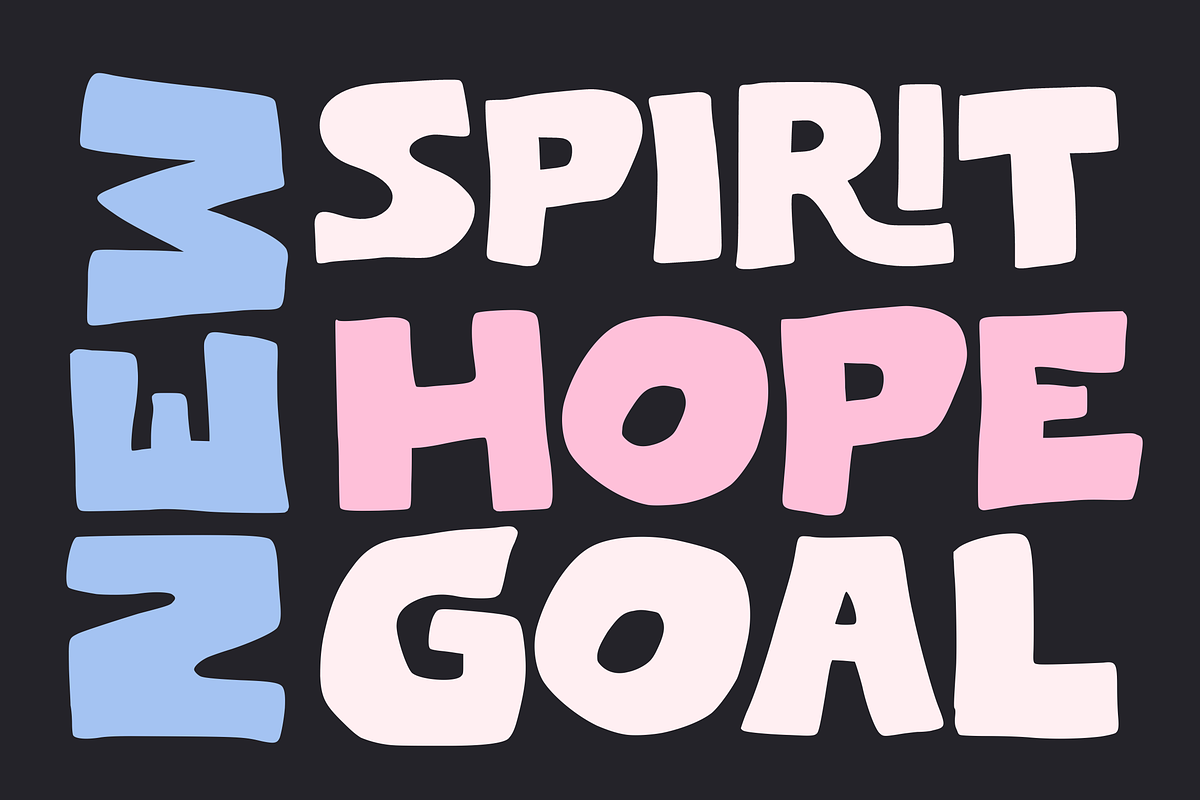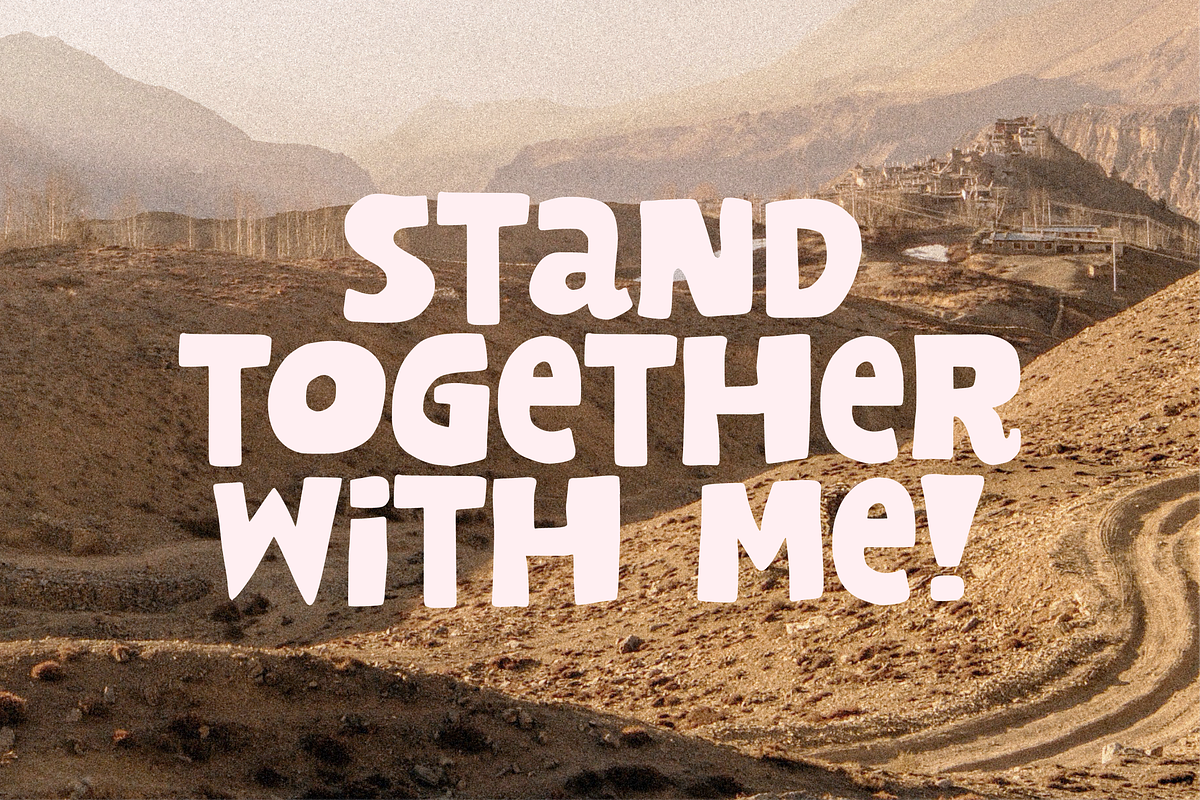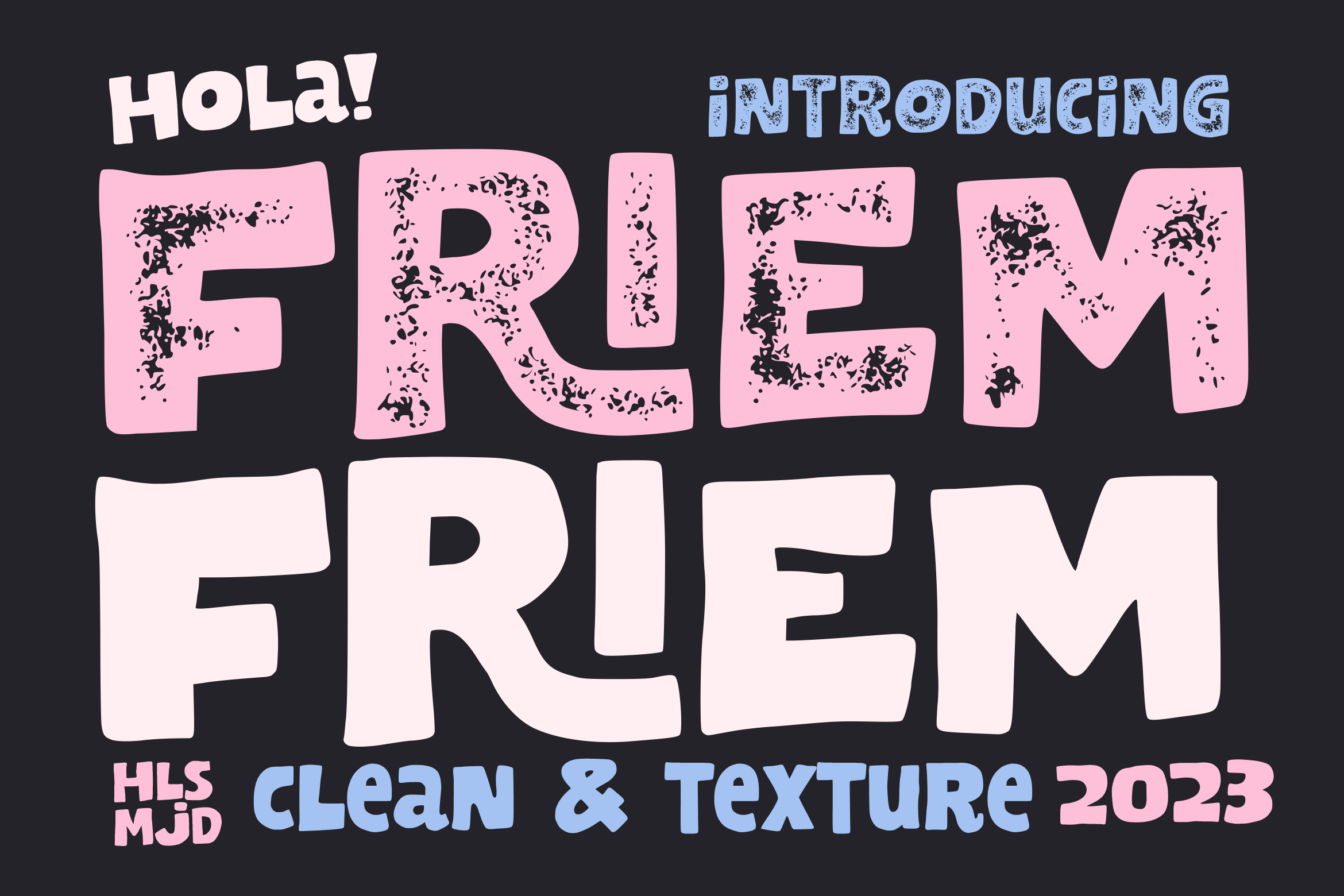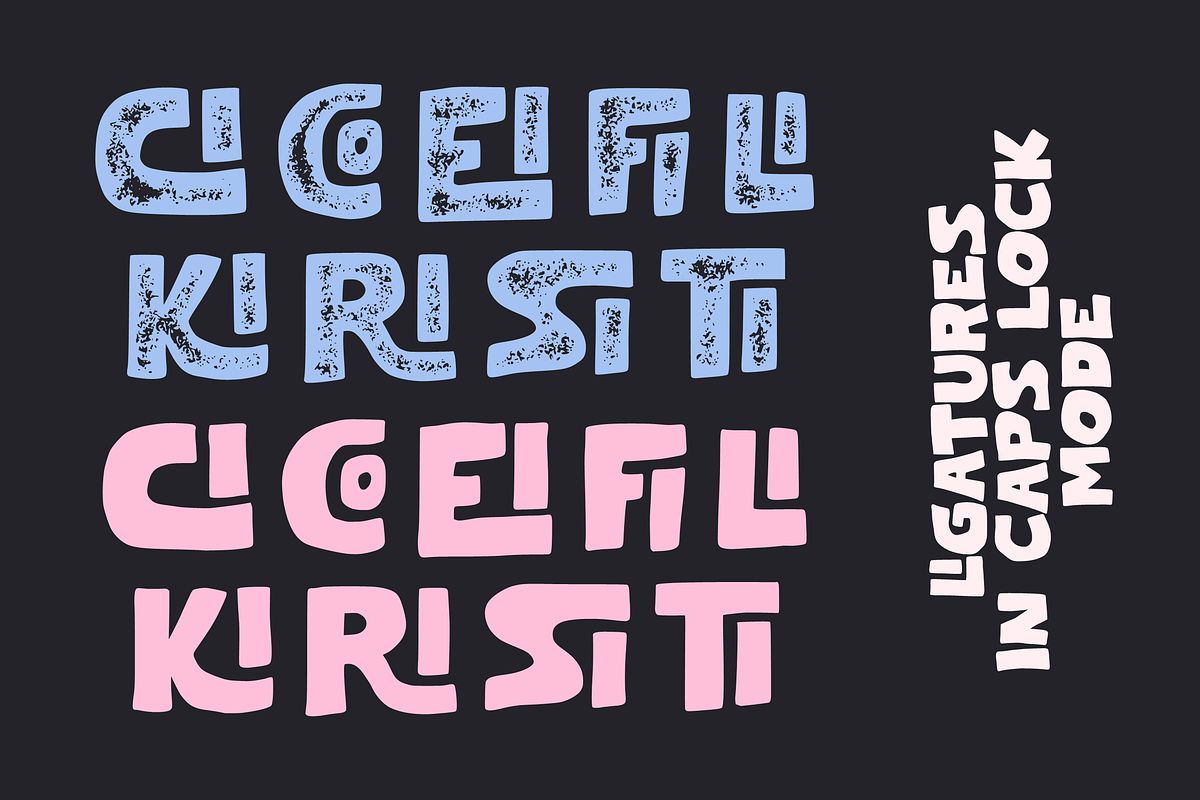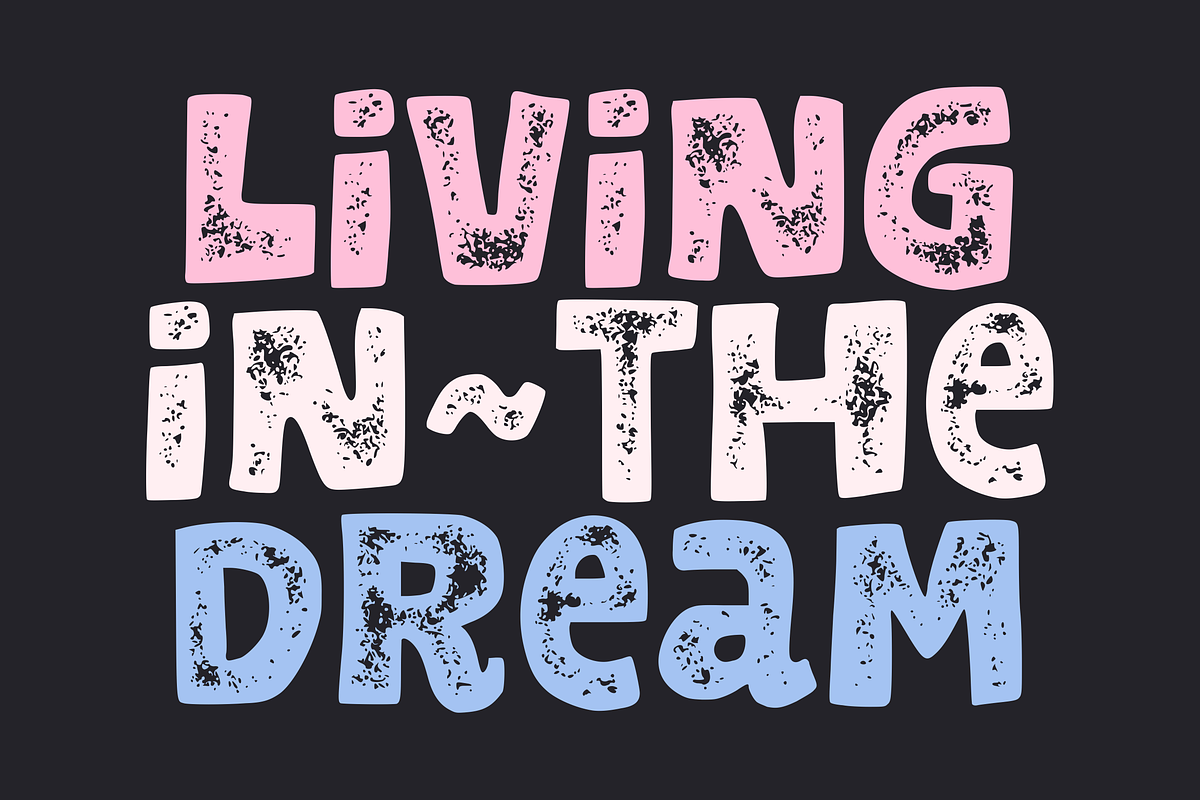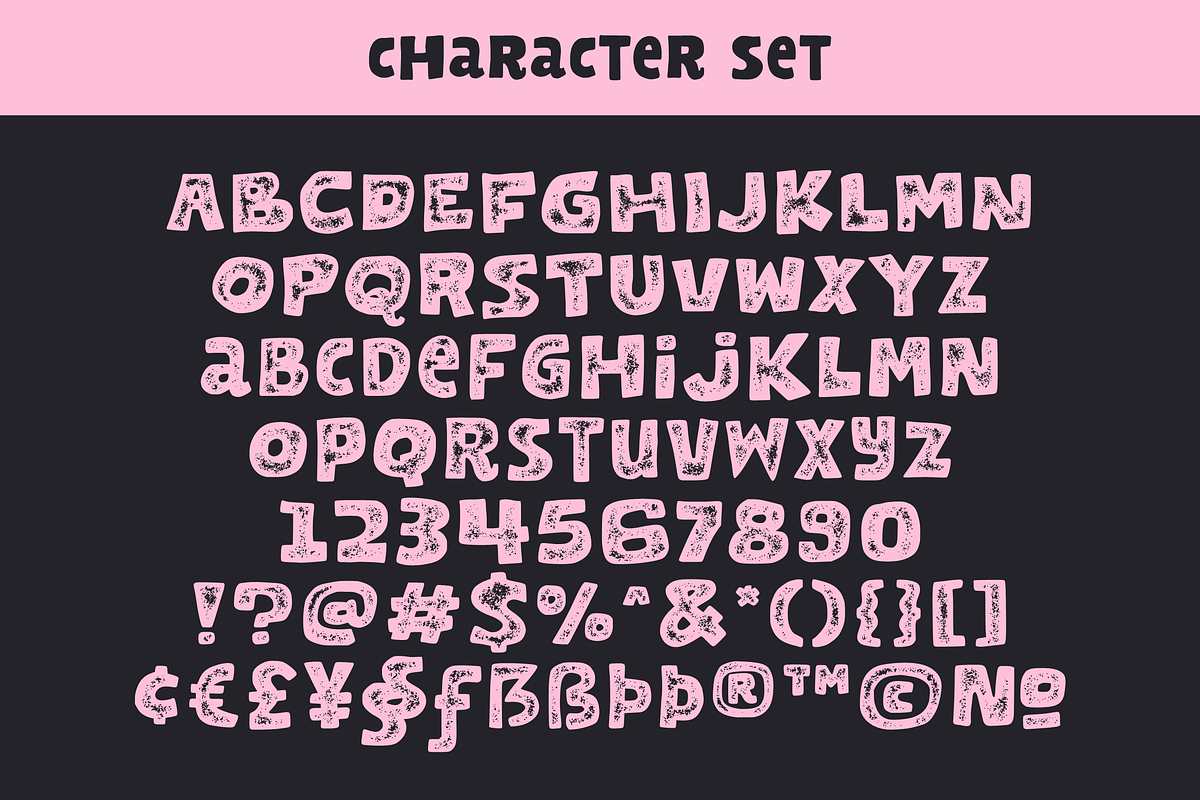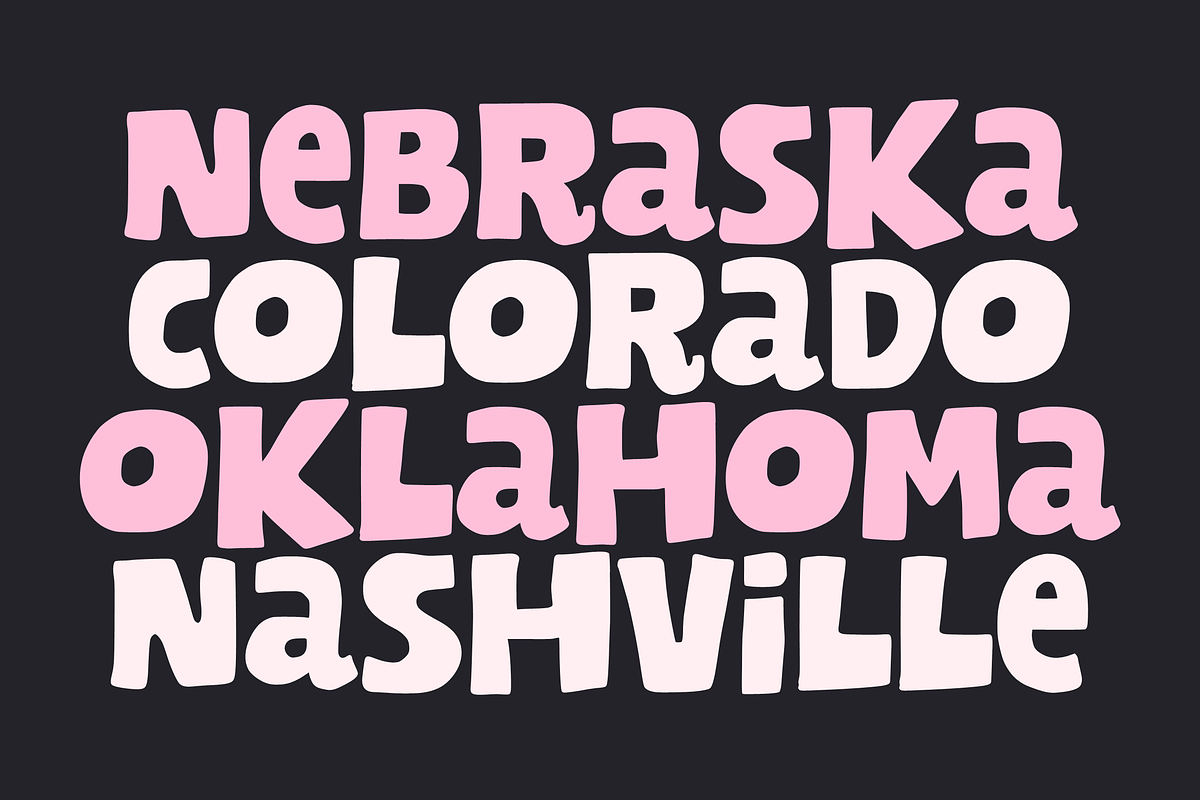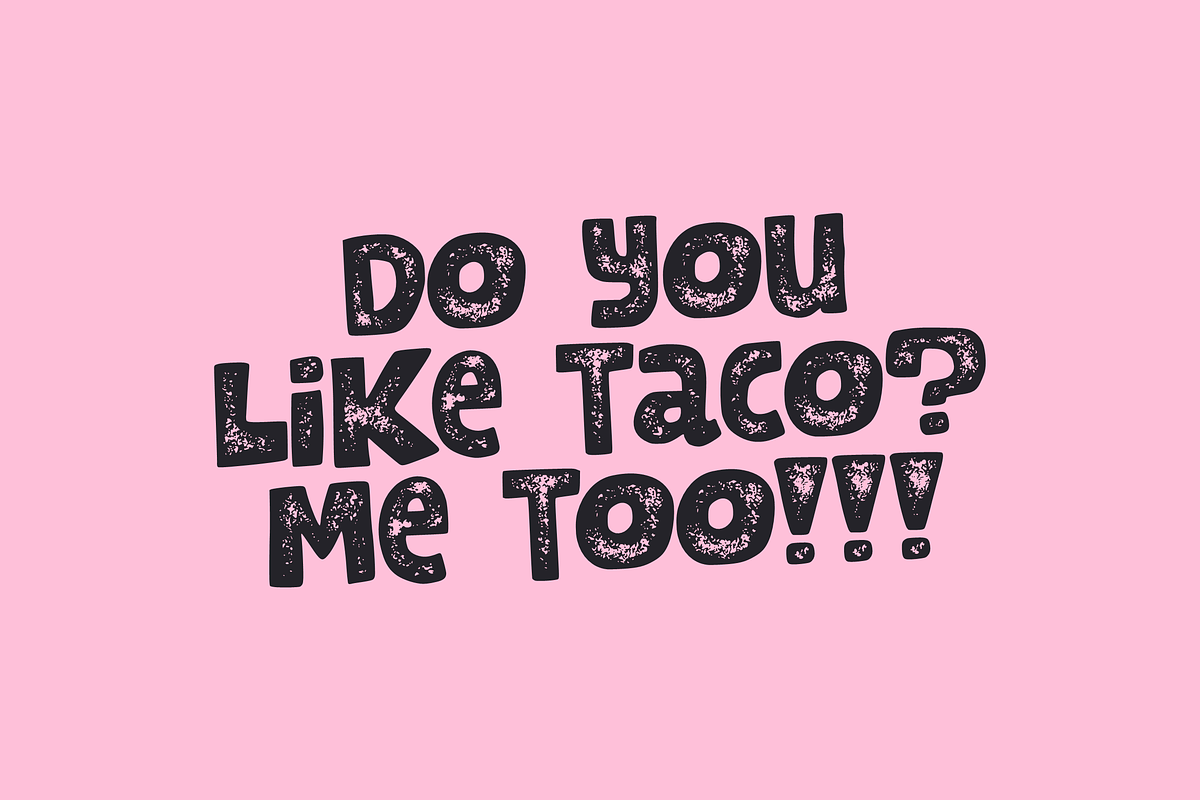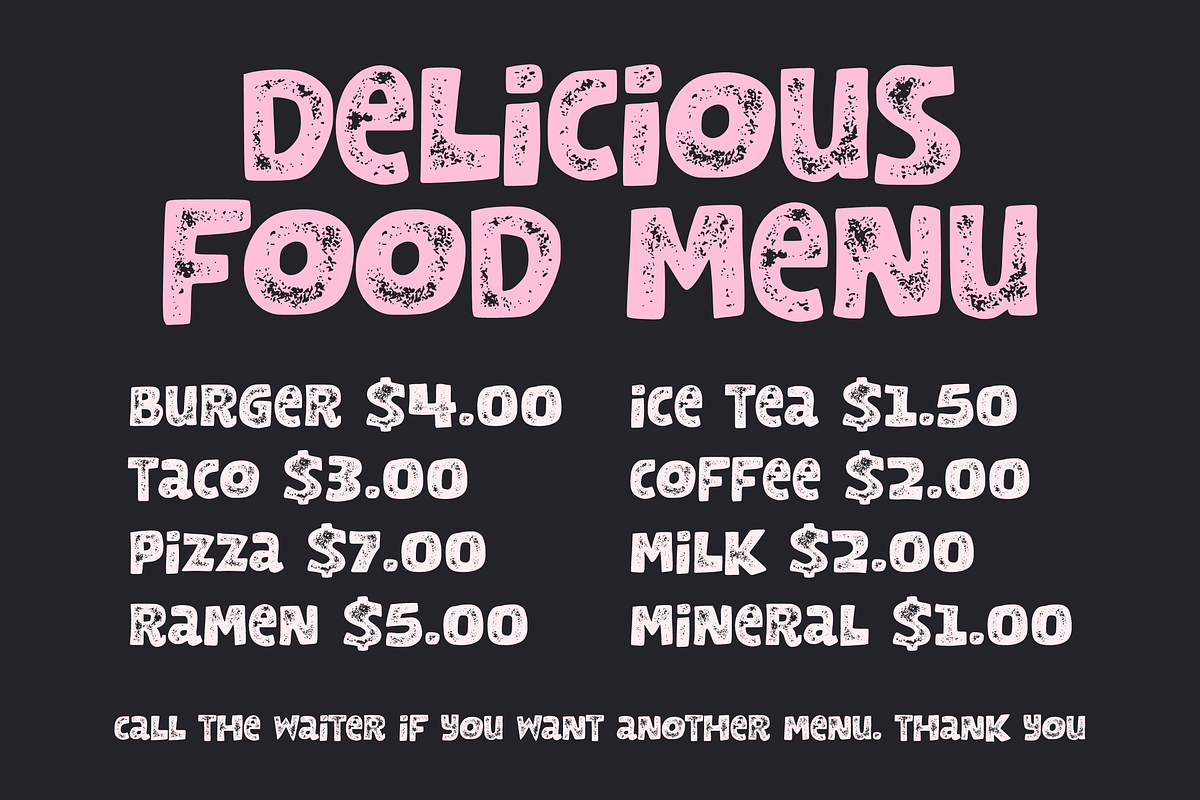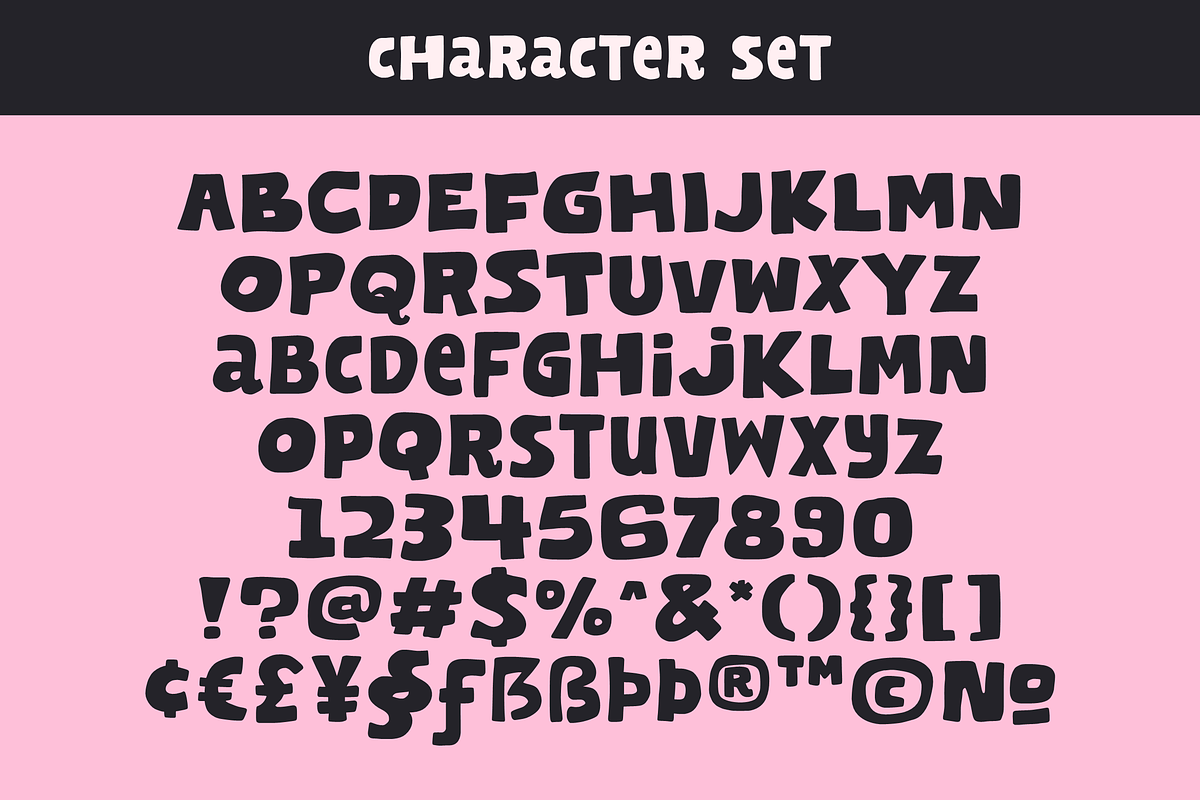
Friem Typeface
Friem is a hand drawn font inspired by fonts that are usually used for children's book titles that have a bold, messy and funny impression. Available in two clean and textured styles, this font is suitable for use for logos, book titles, movie posters, YouTube content, quotes, and more.
There are ligatures that add features to this font, only in uppercase characters.